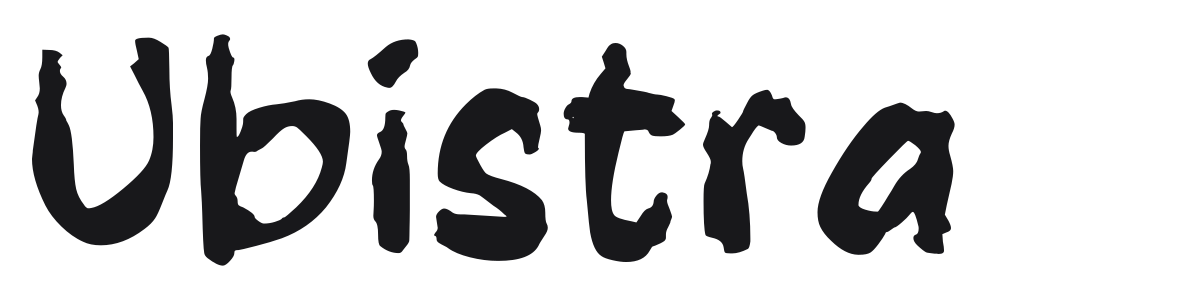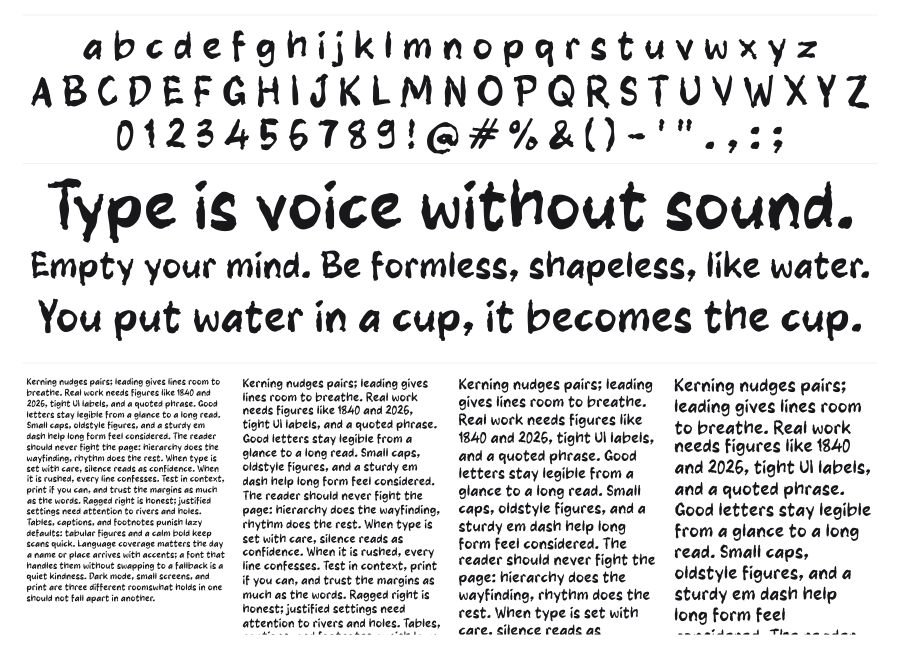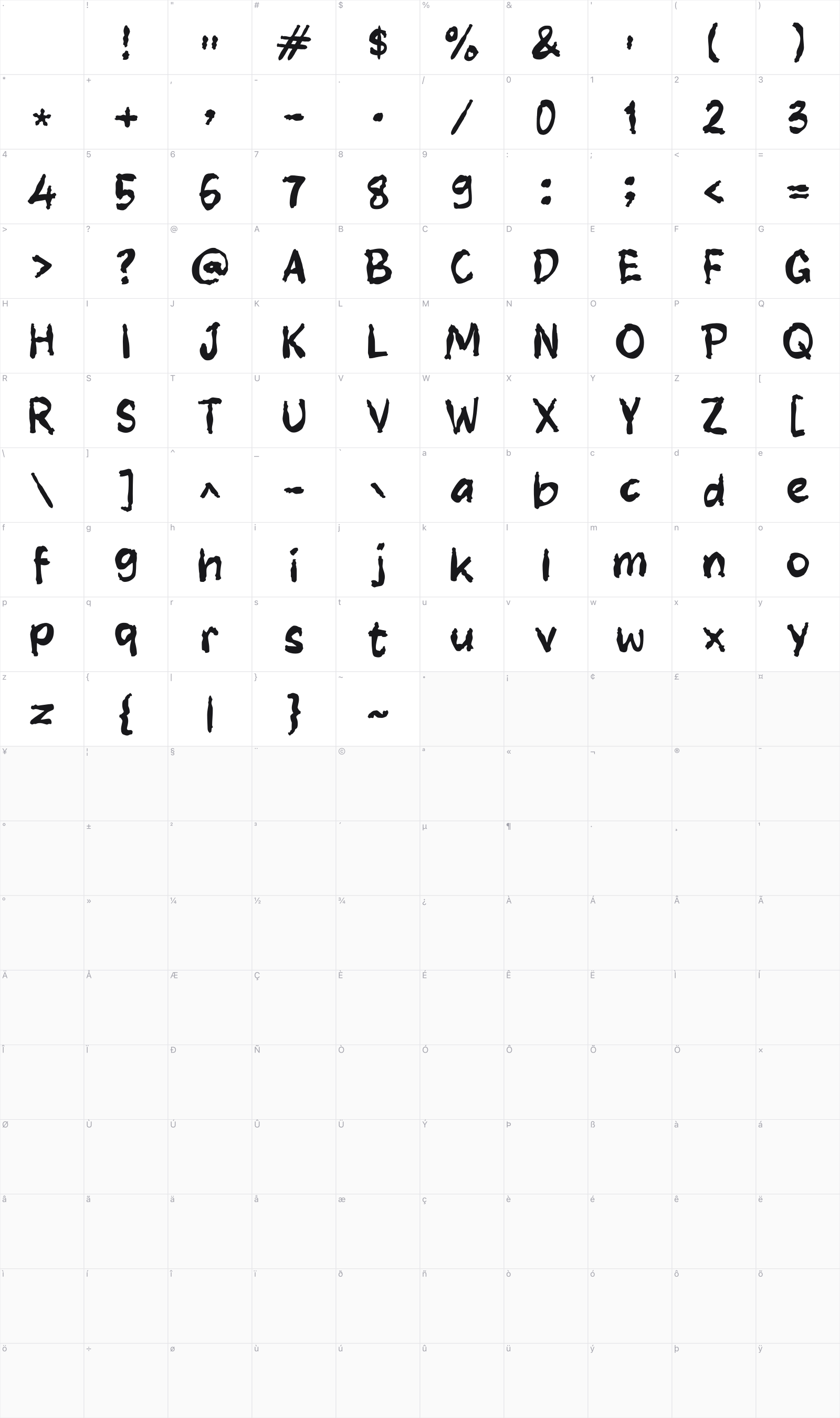
Ubistra
Ubistra is a heavy brush-painted display font with thick, irregular strokes and an unpolished, hand-lettered energy. Ink bleeds, uneven edges, and gestural marks give it the feel of something dashed off with a wide marker on a wall or sketchbook page. That rawness is the point.